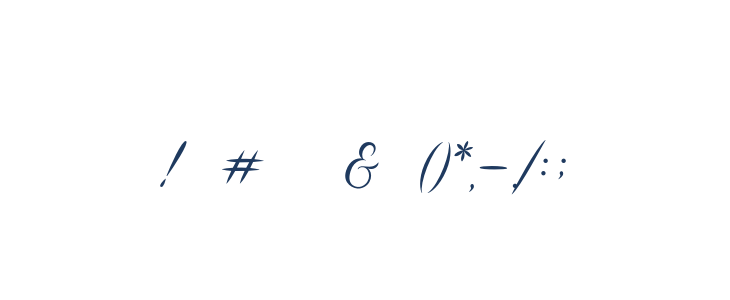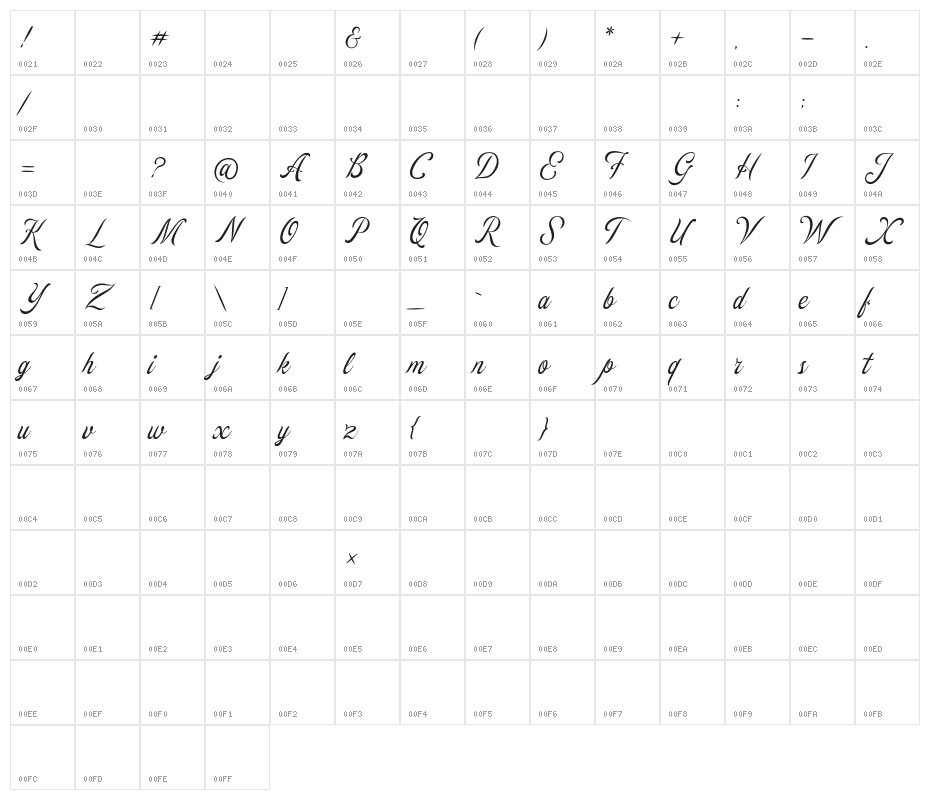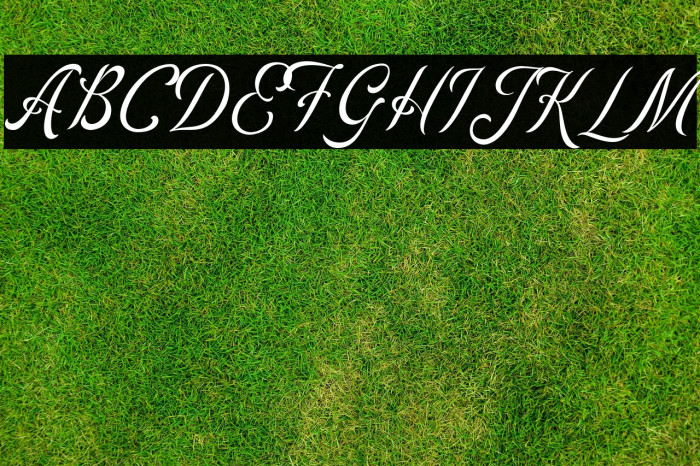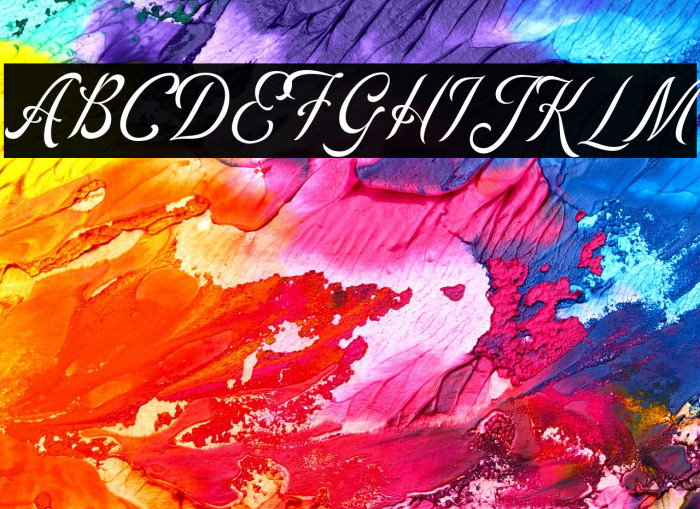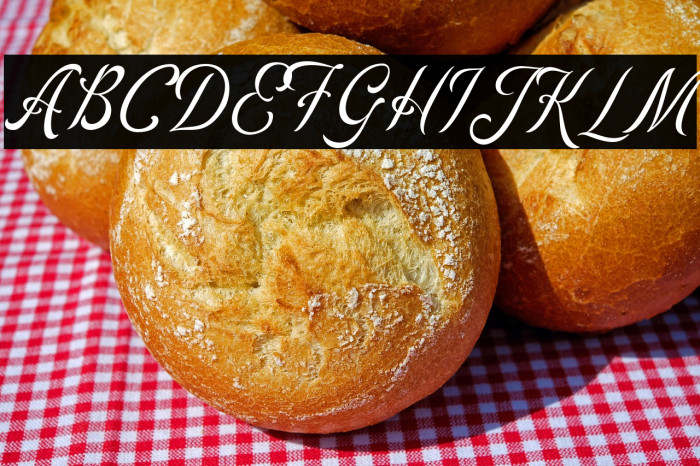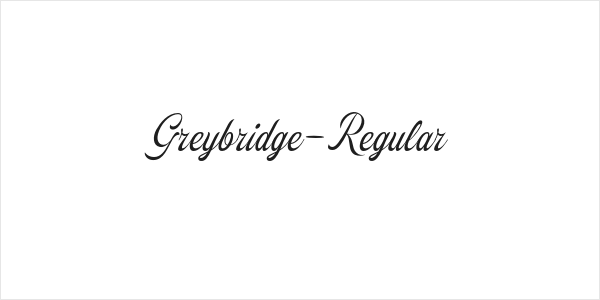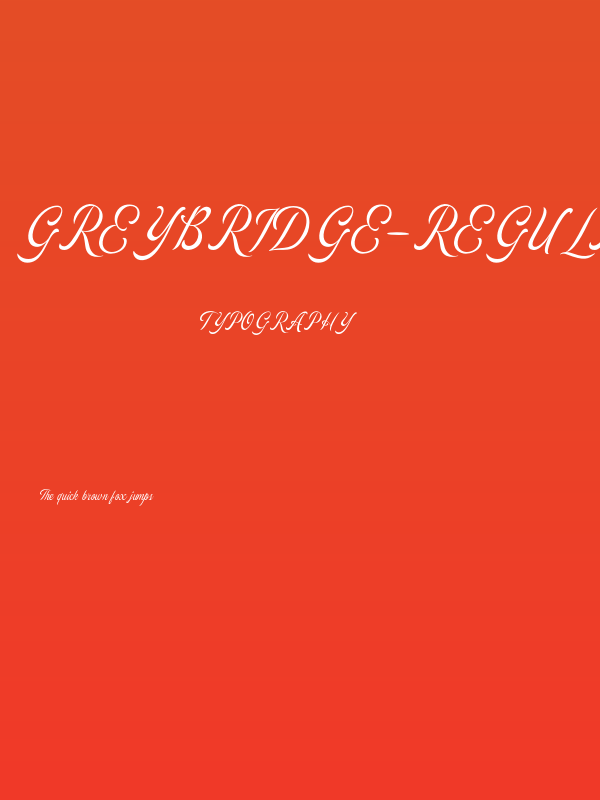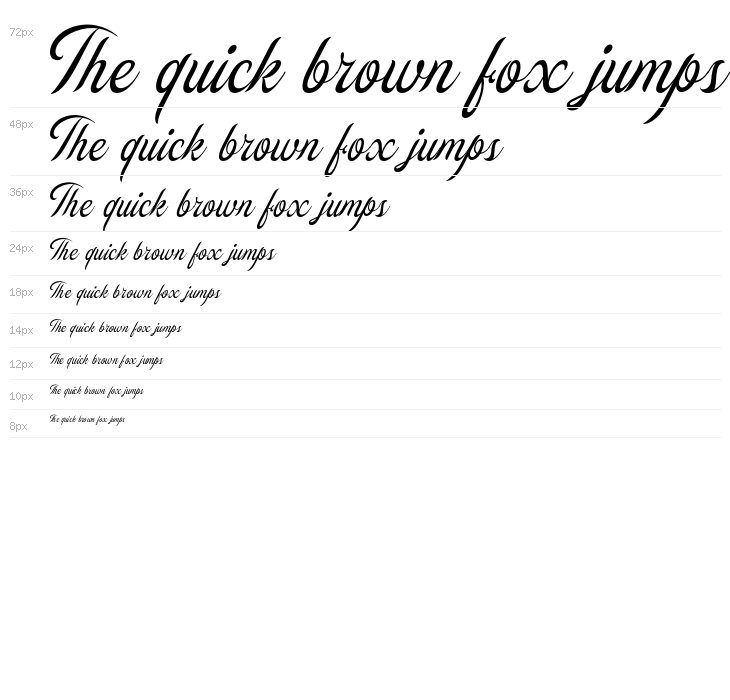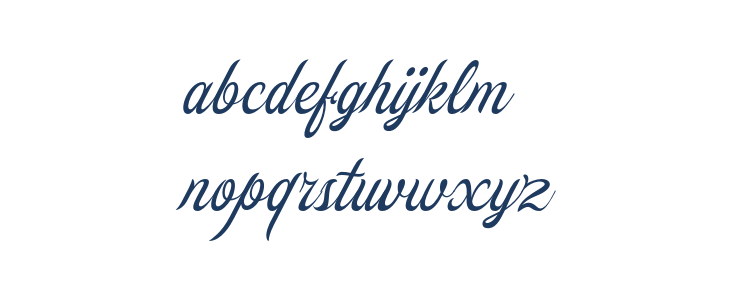
Greybridge-Regular Font
Greybridge-Regular Description
This elegant script font features flowing, cursive letterforms that exude a sense of sophistication and grace. The uppercase letters are particularly ornate, with sweeping curves and flourishes that add a touch of luxury. The lowercase letters maintain a consistent style, offering a smooth and connected appearance that enhances readability. The numerals and special characters are designed to complement the overall aesthetic, ensuring a cohesive look across all text elements. This font is ideal for projects that require a touch of elegance and refinement.
| Overall Style | Elegant, Sophisticated |
| Use Case | Logos, Invitations, Branding |
| Proposed Projects | Wedding invitations, luxury branding, elegant packaging, formal event programs. |